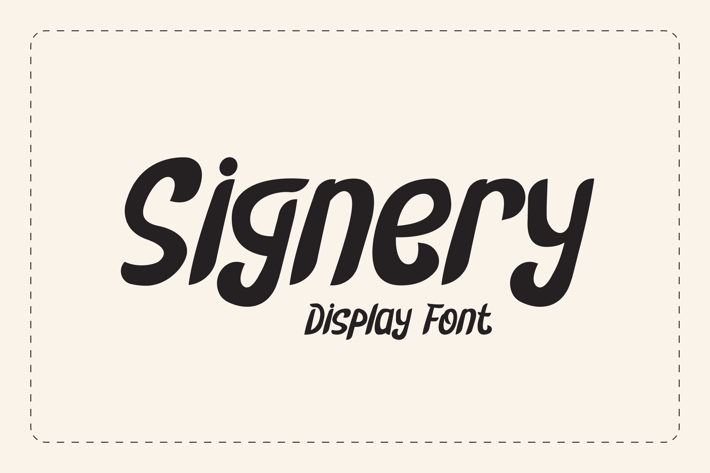
Signery – Display Font
This font took it inspiration from a sign-painting style. The flow, the stylistic end that created based on the brush tips movement, it will looks solid on your projects isn't it?
Suit perfectly for display type logo, teenager books market, online games, stationery, school supplies font, poster, movie title, youtube covers, youtube thumbnails, social media page covers, and so on...